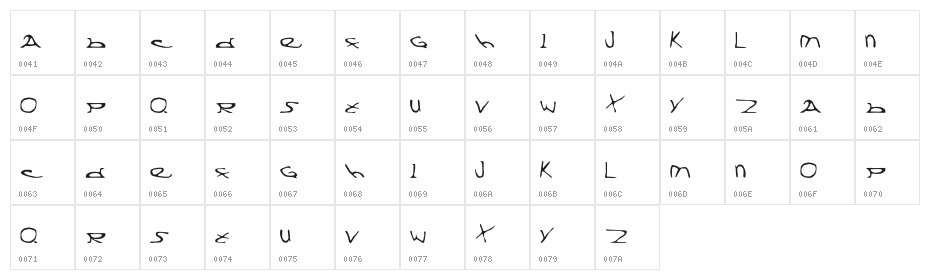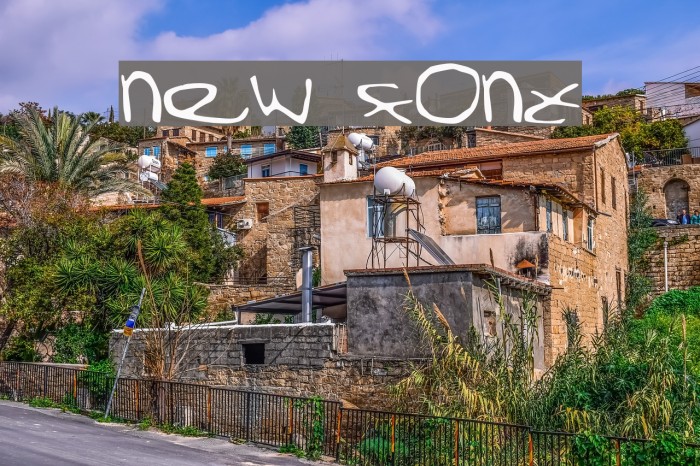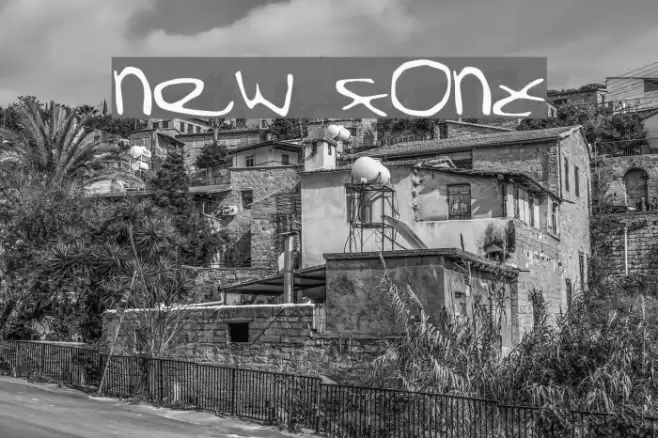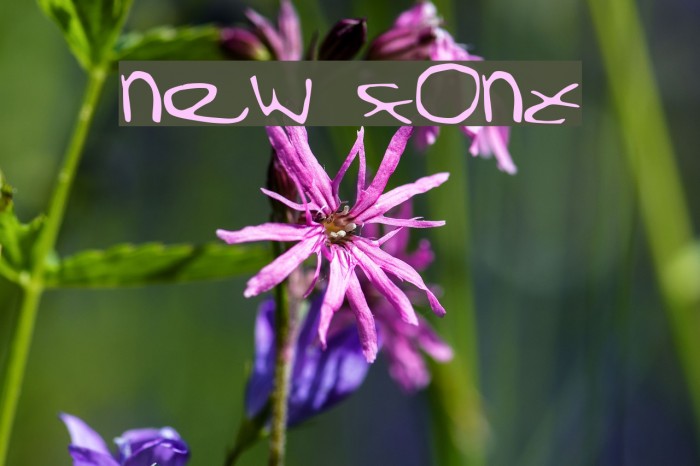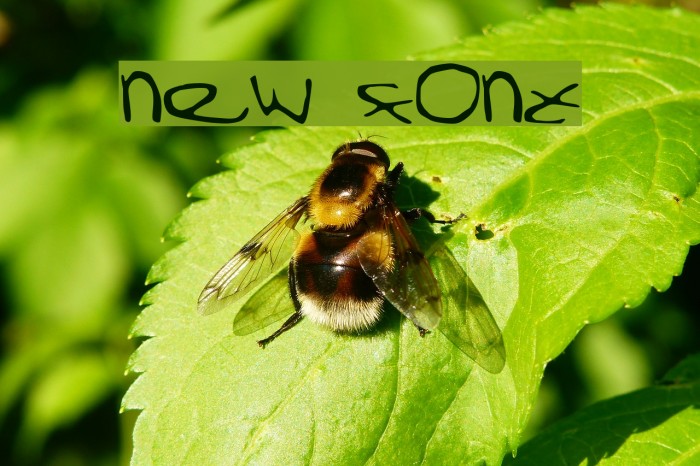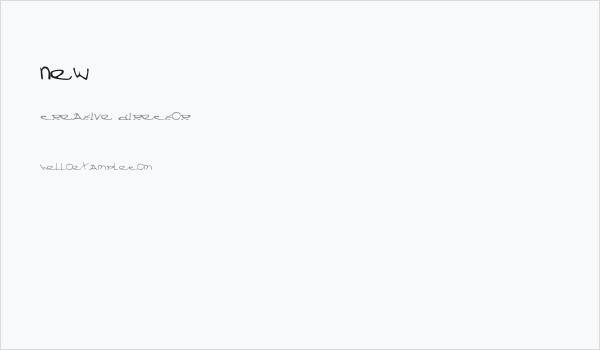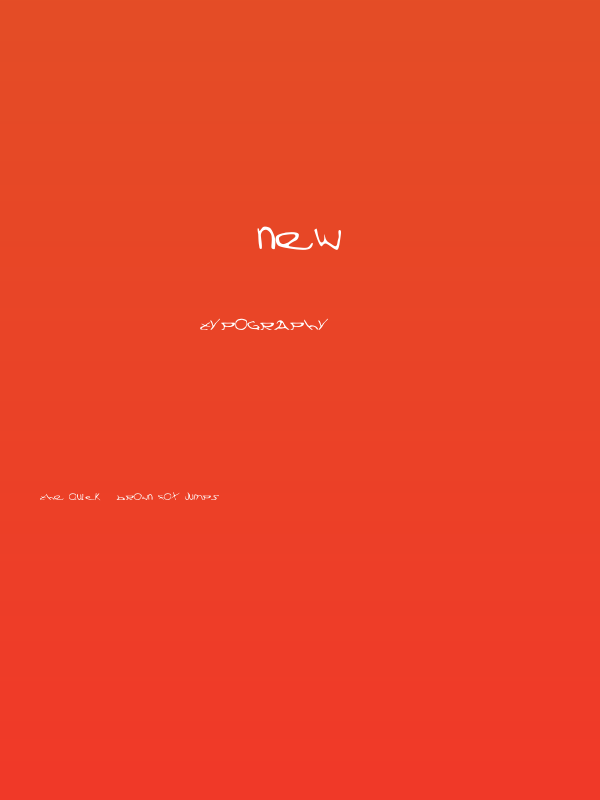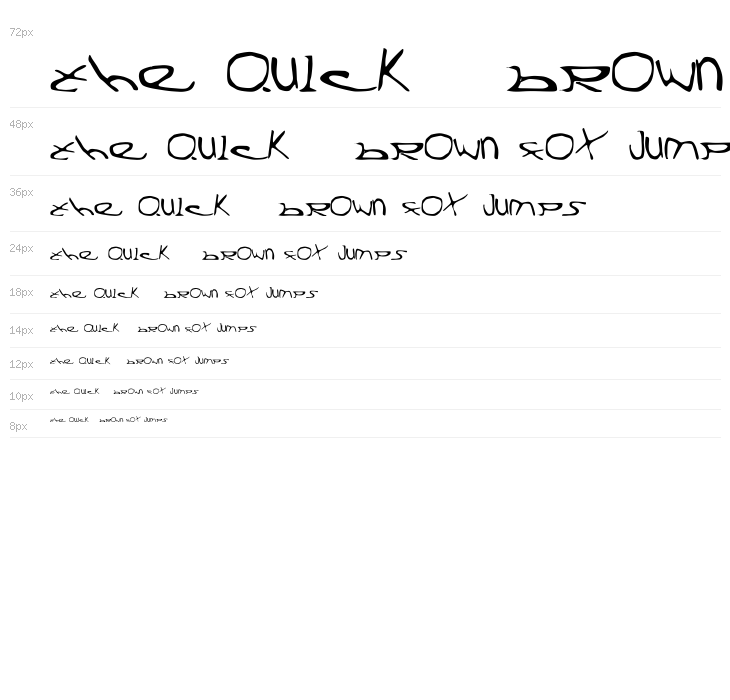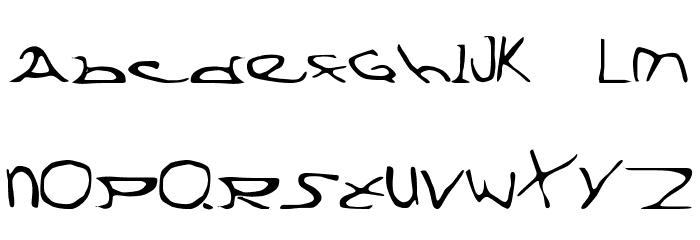
New Font
New Description
This font features a unique and artistic style, characterized by its irregular and flowing letterforms. The characters exhibit a hand-drawn appearance, with varying stroke widths that give it a dynamic and expressive feel. The uppercase and lowercase letters maintain a consistent style, with some letters having exaggerated curves and angles. The overall design is reminiscent of graffiti or street art, making it stand out with its bold and unconventional look. The numbers and special characters follow the same artistic theme, ensuring a cohesive appearance across all glyphs.
| Use Case | Logos, Posters, Creative projects |
| Proposed Projects | Ideal for creative projects such as album covers, posters, street art designs, and branding for edgy or alternative brands. |